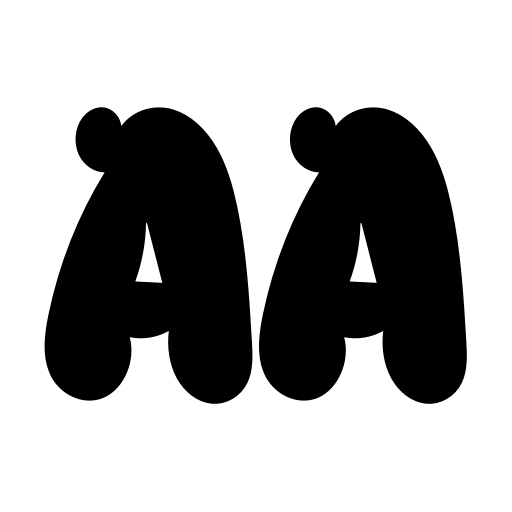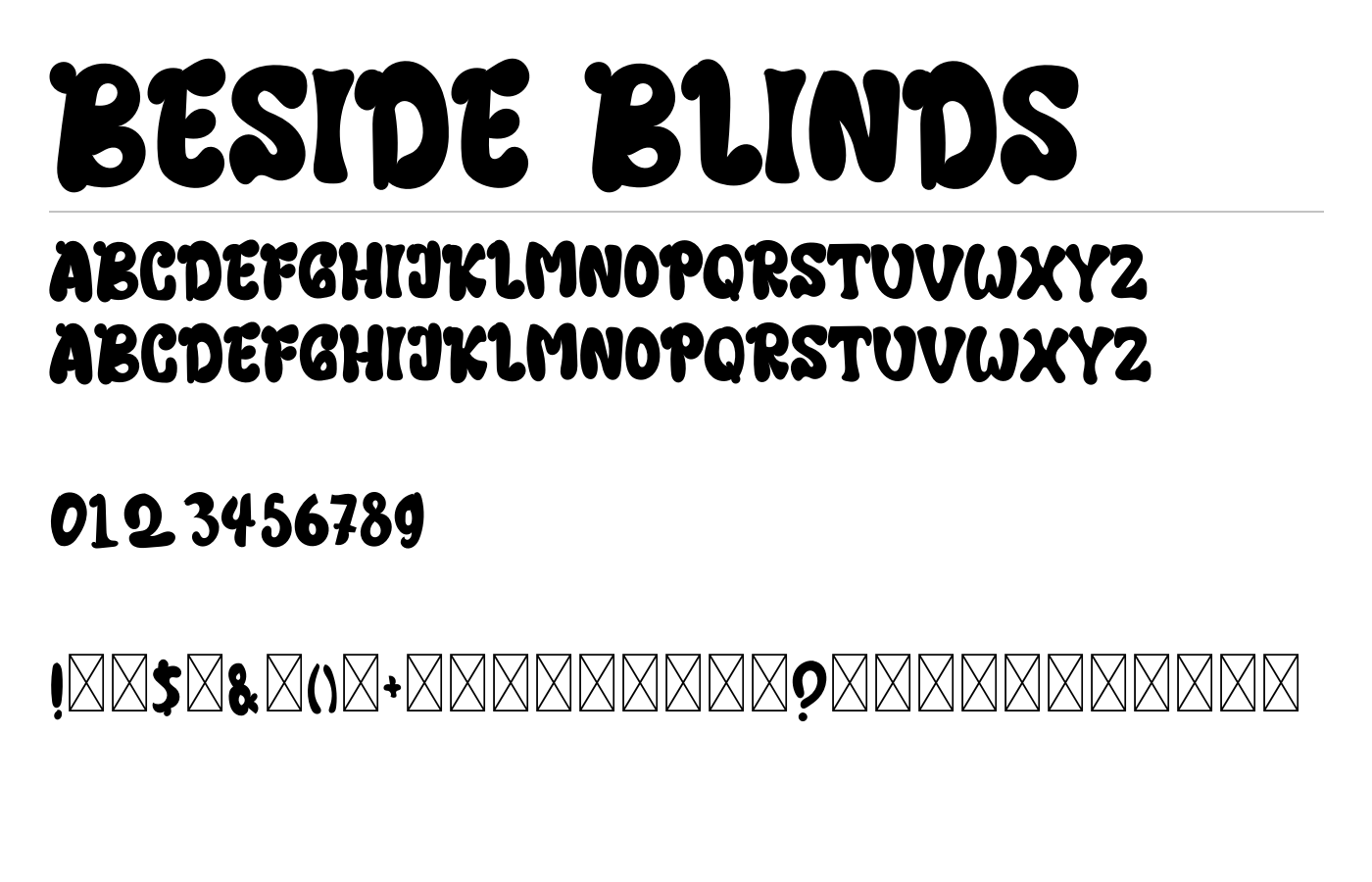
Beside Blinds is a bold, playful display font with rounded, chunky letterforms that evoke a fun and casual vibe. Its thick strokes and whimsical shapes make it ideal for eye-catching headlines, logos, and creative projects that need a friendly and approachable personality. This font works best where a strong, informal style is desired, such as in posters, children’s designs, or quirky branding.
Beside Blinds Font
About Beside Blinds Font
| Font family | Beside Blinds Font |
| Designer | Nur Edi Prayitno |